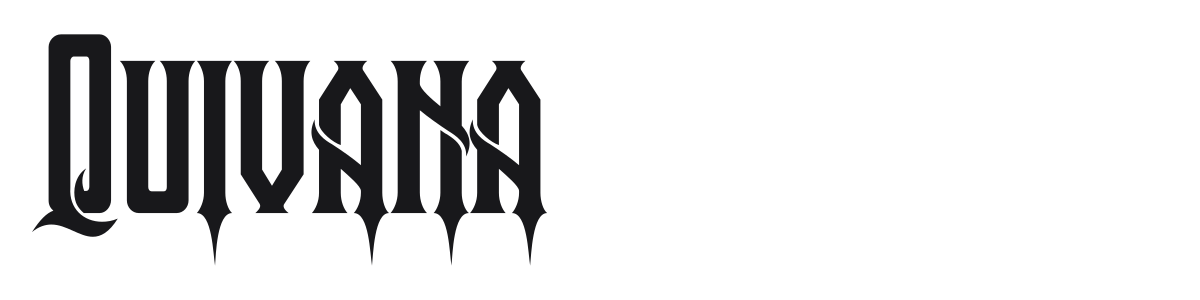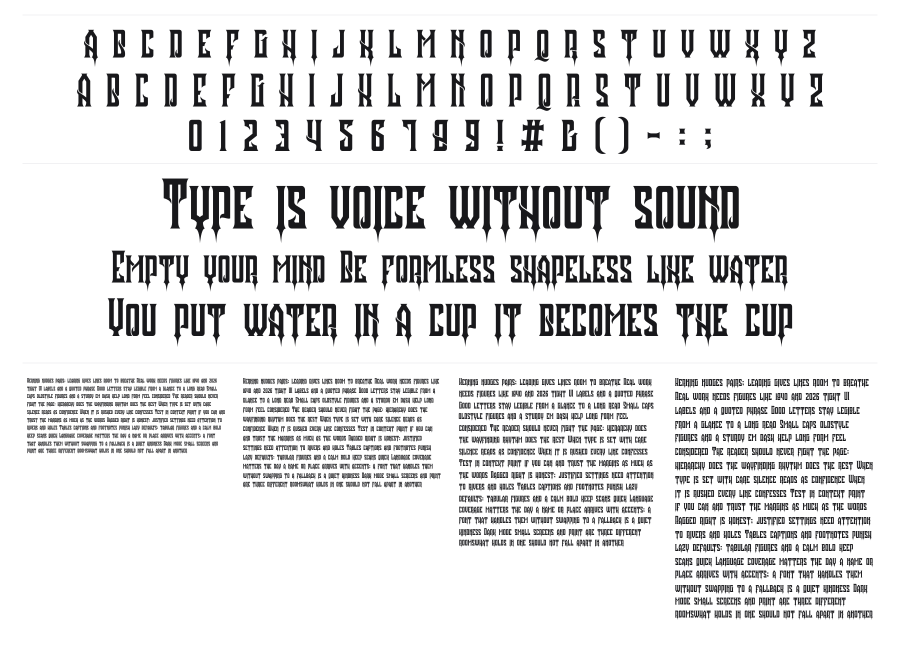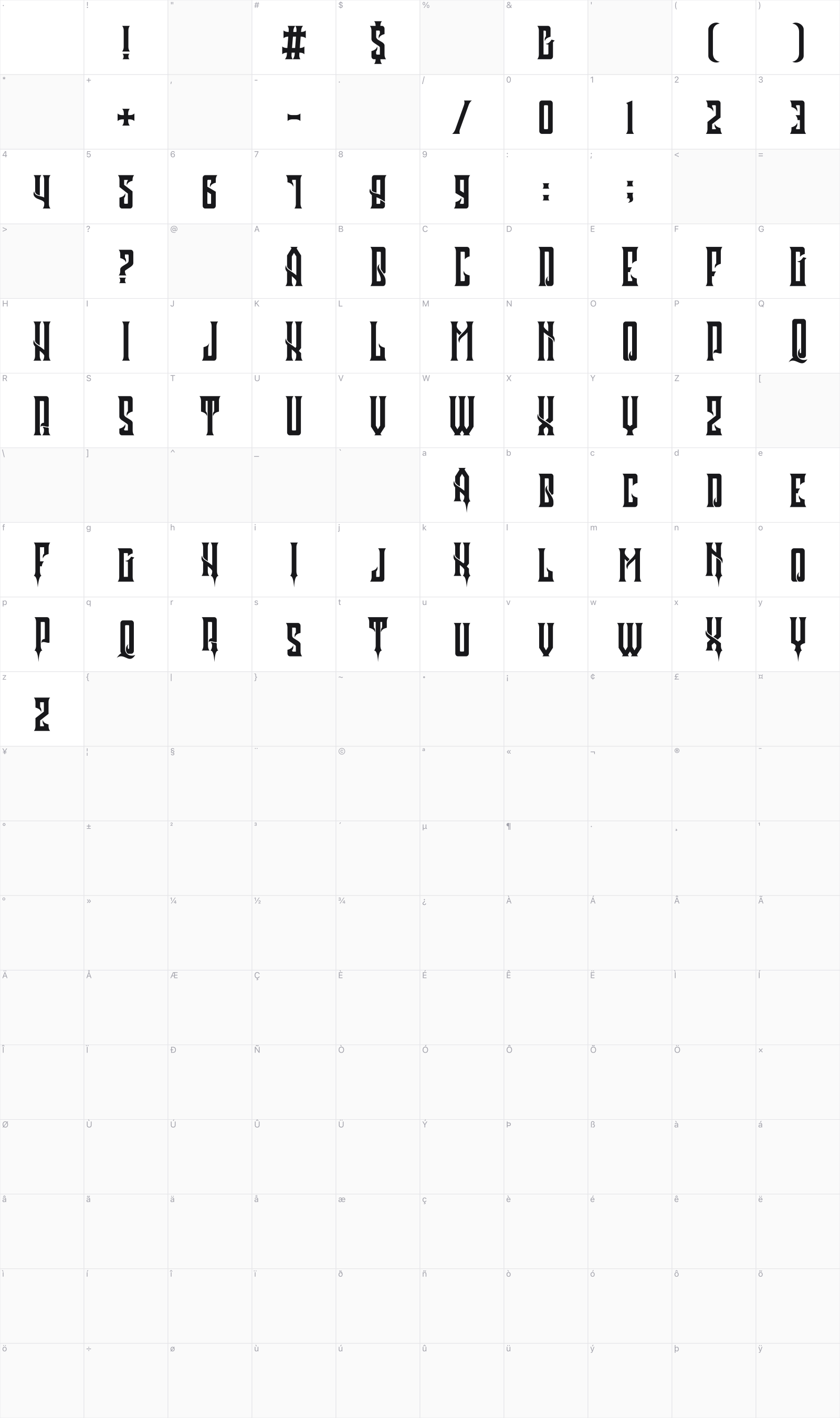
Quivana
Quivana is a bold gothic blackletter with sharply spiked terminals and extreme stroke contrast that push the design firmly into heavy metal territory. The downward-pointing spurs extending from the baseline give each character a menacing, jagged edge unlike conventional blackletter revivals. Built for large display use in music, apparel, and entertainment branding.